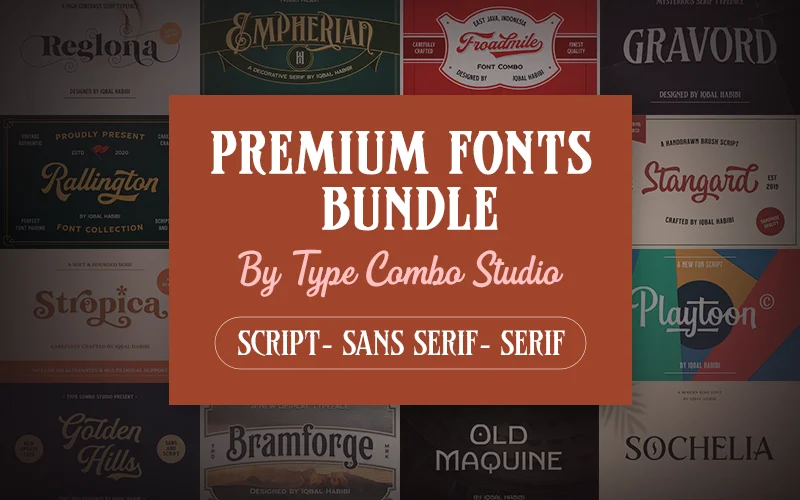
A free bundle of 13 premium-quality fonts for use in personal and commercial projects. This collection ranges from vintage display serifs to playful hand-drawn scripts, giving you a versatile toolkit for logos, packaging, posters, apparel graphics, signage and more. Fonts come in common formats and are ready to drop into any creative workflow.
- Bramforge
- Clautya
- Empherian
- Froadmile
- Golden Hills
- Gravord
- Old Maquine
- Playtoon
- Rallington
- Reglona
- Sochelia
- Stangard
- Stropica
Font details
- Bramforge — A display serif inspired by vintage catalog cards. Great for headlines, signage and logos.
- Clautya — A cute, hand-drawn script with playful character; ideal for lettering, logos and quotes.
- Empherian — Decorative serif with vintage catalog-card influences, suited for logos and branding.
- Froadmile — Display family with 3 variations (script, sans, condensed); versatile for modern and retro projects.
- Golden Hills — A font duo pairing a hand-lettered script with a sans-serif — perfect for packaging, posters and lettering.
- Gravord — Sharply styled serif with gothic influences; suited to horror-themed posters and seasonal designs.
- Old Maquine — Display type inspired by early 1900s faces; works well for book covers, logos and signage.
- Playtoon — Playful script with many alternates; great for custom lettering, logos and apparel.
- Rallington — Vintage-inspired set (includes 4 related fonts) modeled on beer labels and print ads; excellent for labels, signage and logos.
- Reglona — High-contrast serif with elegant flourishes; ideal for headlines and premium packaging.
- Sochelia — Clean, modern serif with 450+ glyphs; suited for minimalist logos, posters and invitations.
- Stangard — Hand-drawn script with alternates and ligatures; perfect for custom logotypes and posters.
- Stropica — Soft, rounded serif that blends retro vibes with modern use — great for headlines, logos and packaging.